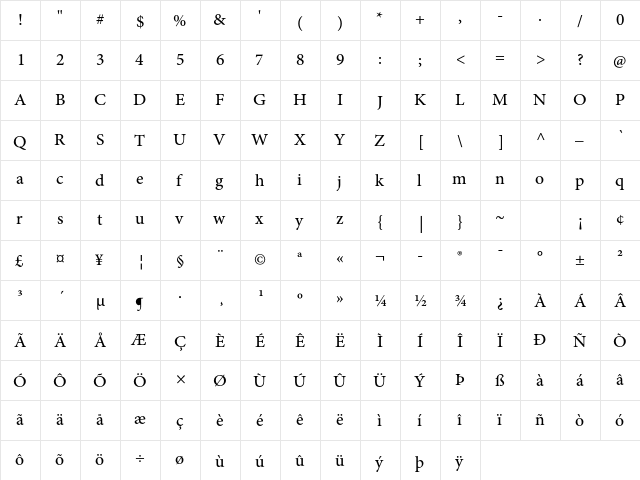
Adobe Arabic Regular
| Foundry | Tiro Typeworks for Adobe Systems Incorporated. |
| Designer | Tim Holloway (Arabic) and Robert Slimbach (Latin) |
Design Context for Adobe Arabic Typeface
Adobe Arabic is a composed and adaptable typeface that performs quietly and consistently across a wide range of design contexts.